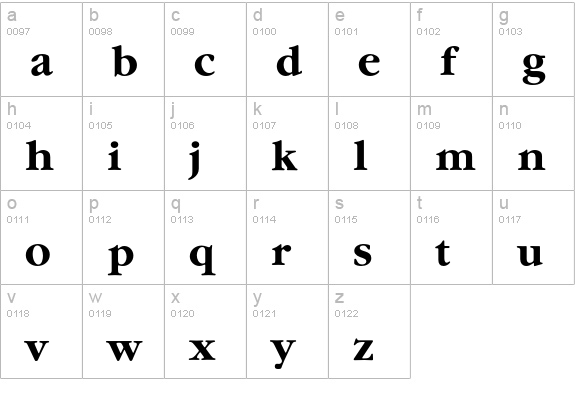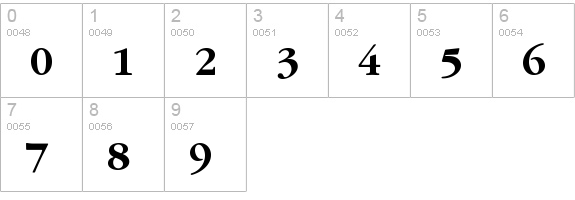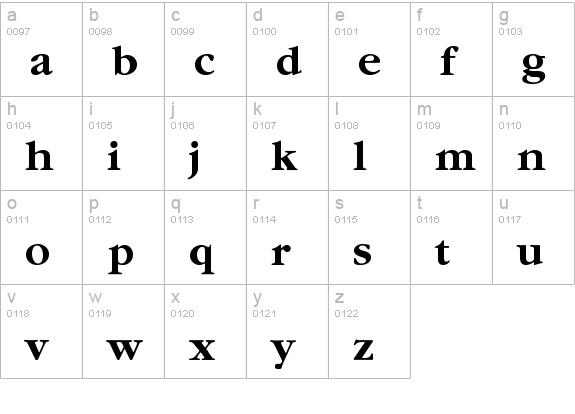
GaramondEF-Bold is a strong, high-contrast variant in the GaramondEF typeface family \xE2\x80\x94 well suited to headlines, attention-grabbing titles, and strong calls-to-action.
GaramondEF-Bold is a timeless font that exudes elegance and sophistication. With its bold and robust design, this font commands attention and makes a bold statement in any project. Its clean and crisp letterforms are perfectly balanced, offering a harmonious blend of classic and modern aesthetics. The GaramondEF-Bold font is ideal for a wide range of applications, including headings, titles, logos, and branding materials. Its strong and confident presence adds a touch of professionalism to any design, making it perfect for both print and digital projects. This font is not only visually appealing but also highly legible, ensuring that your message is conveyed with clarity and impact. Its generous letter spacing and well-defined strokes ensure easy readability even at smaller sizes. One of the greatest advantages of GaramondEF-Bold is that it is freely available to download at FontsMarket.com. This means that you can enjoy the benefits of this exquisite font without any cost or restrictions. Whether you are a professional designer or an enthusiastic hobbyist, this font is a valuable addition to your creative toolkit. Impress your audience with the timeless beauty and strength of GaramondEF-Bold. Download it for free at FontsMarket.com and unleash your creativity with this exceptional typeface.